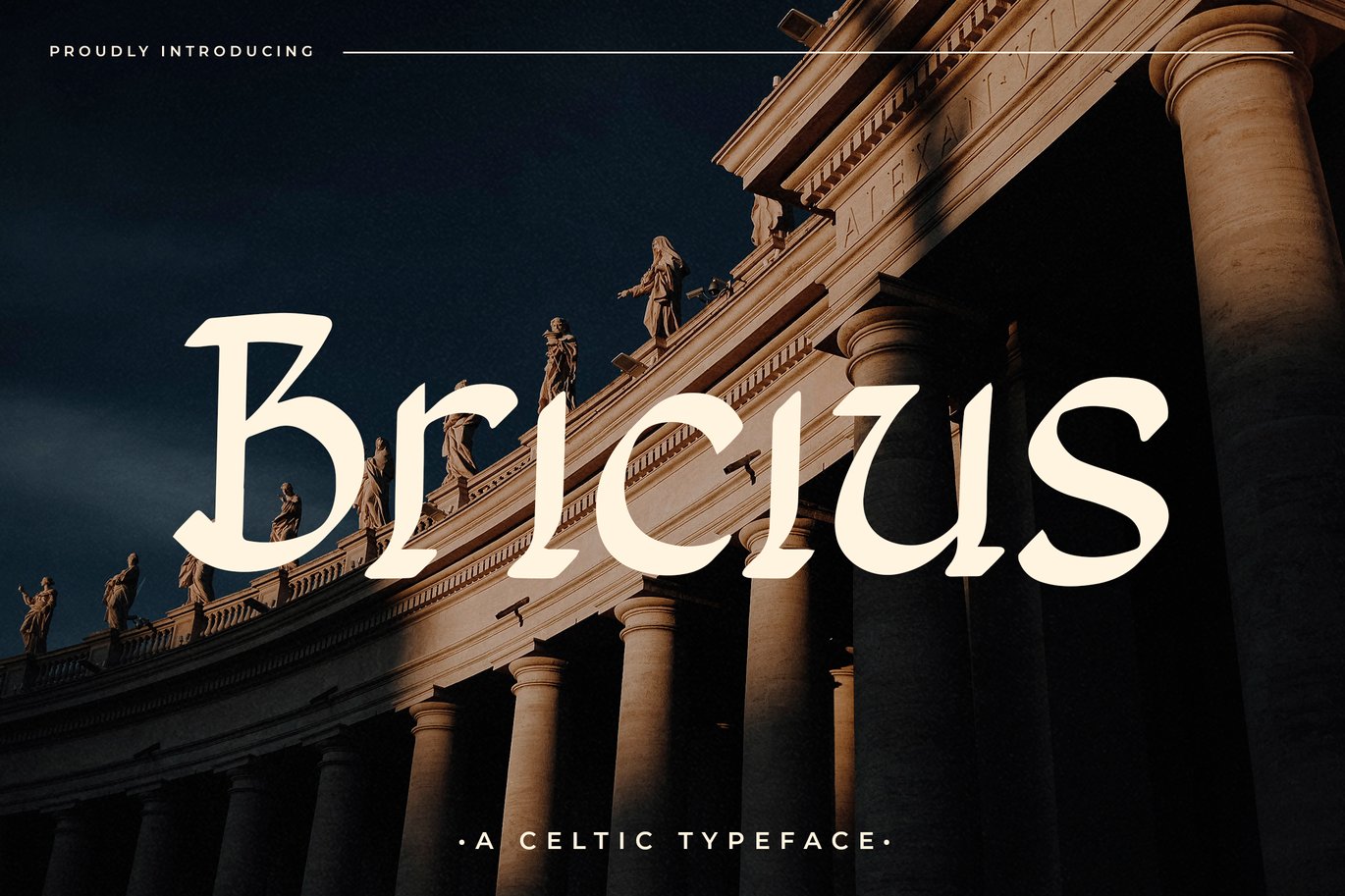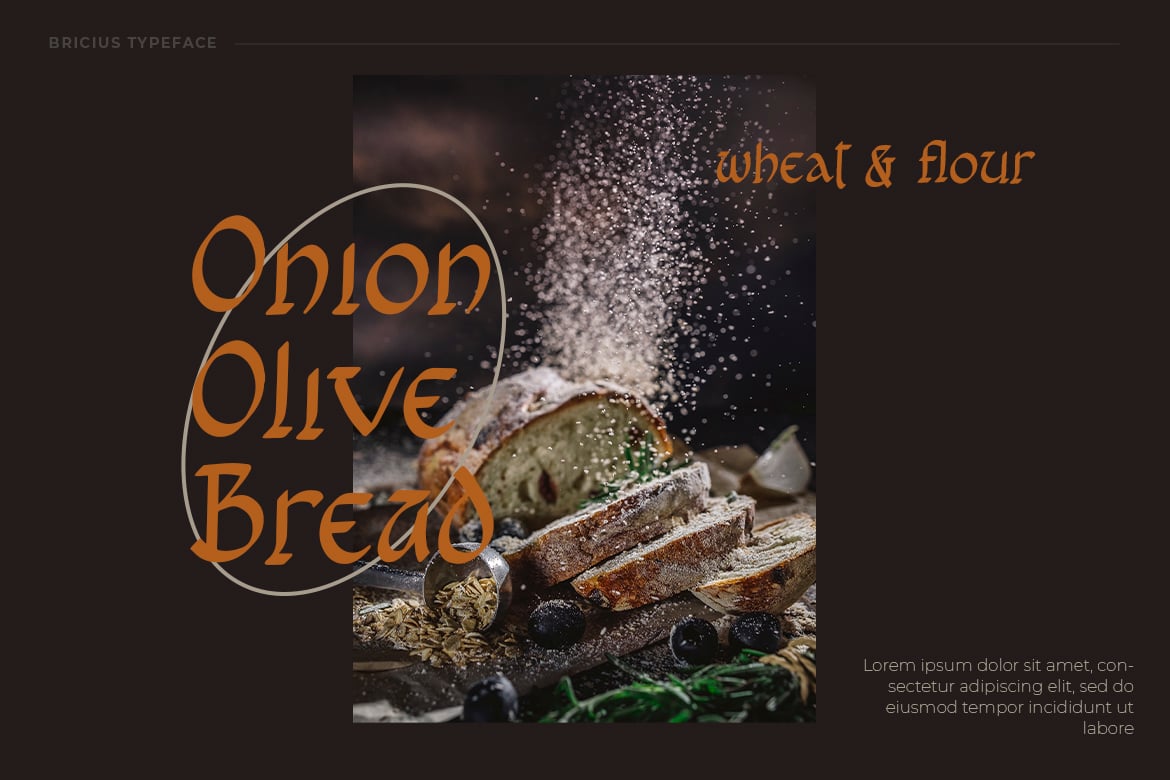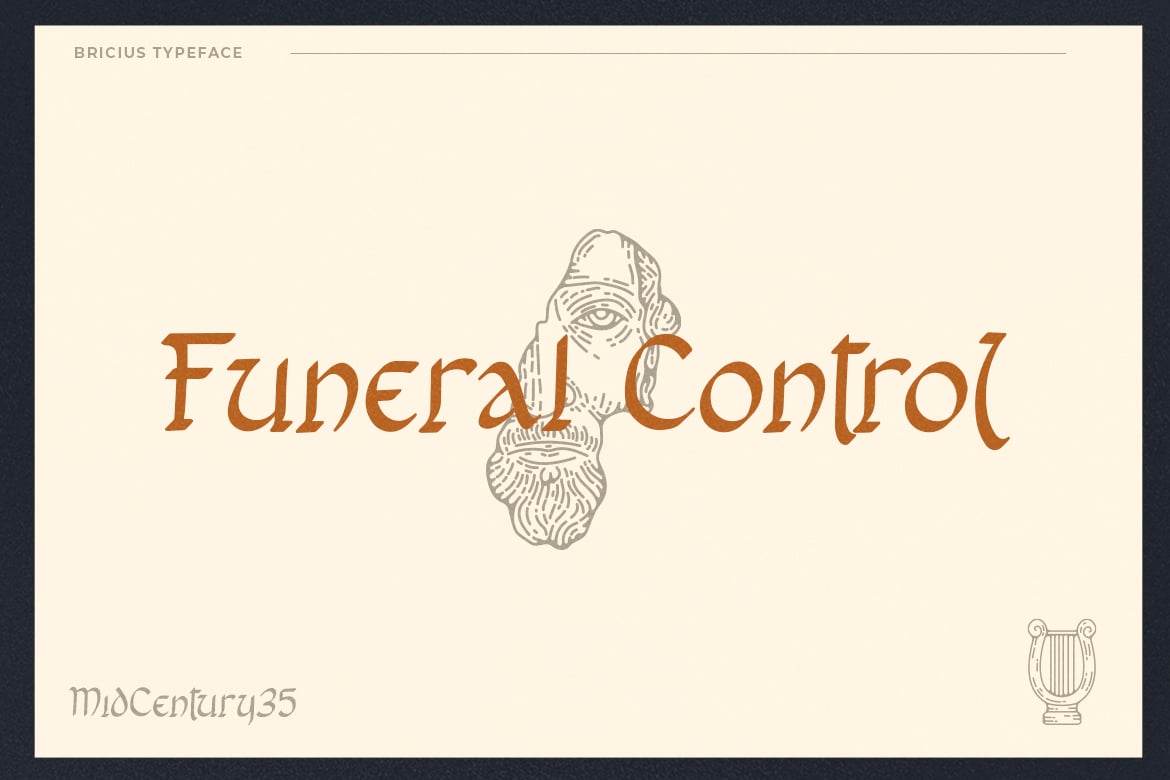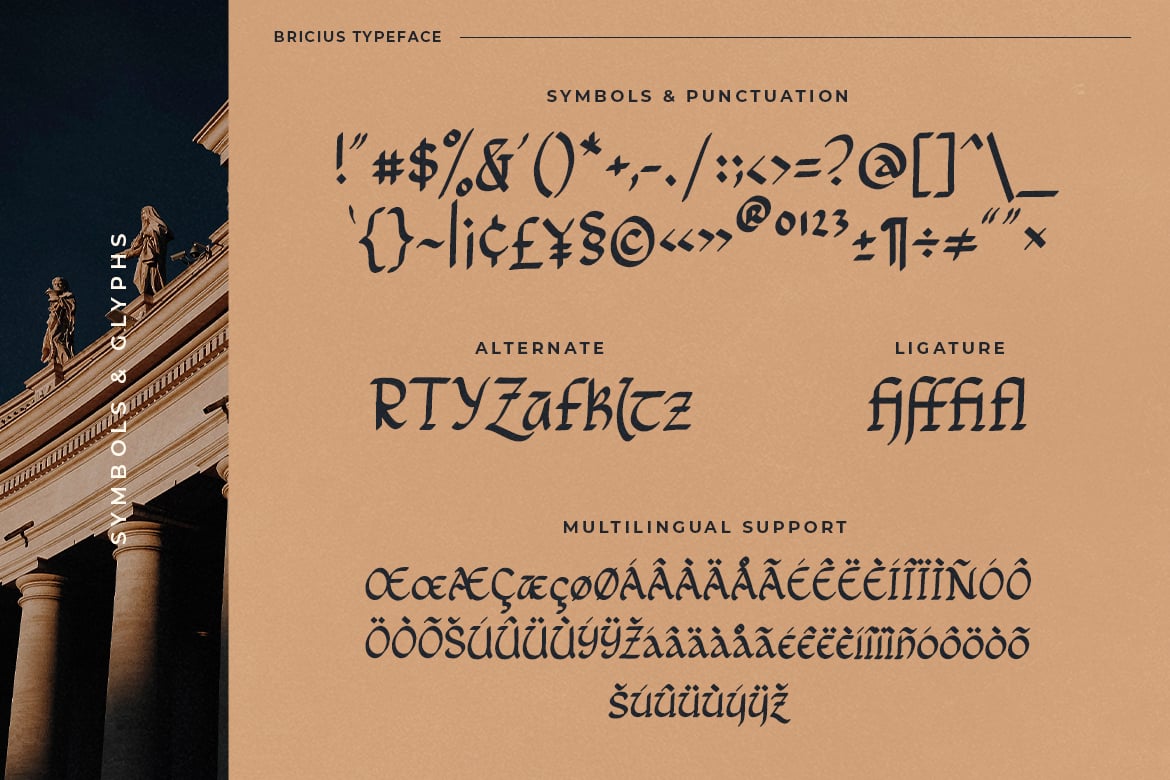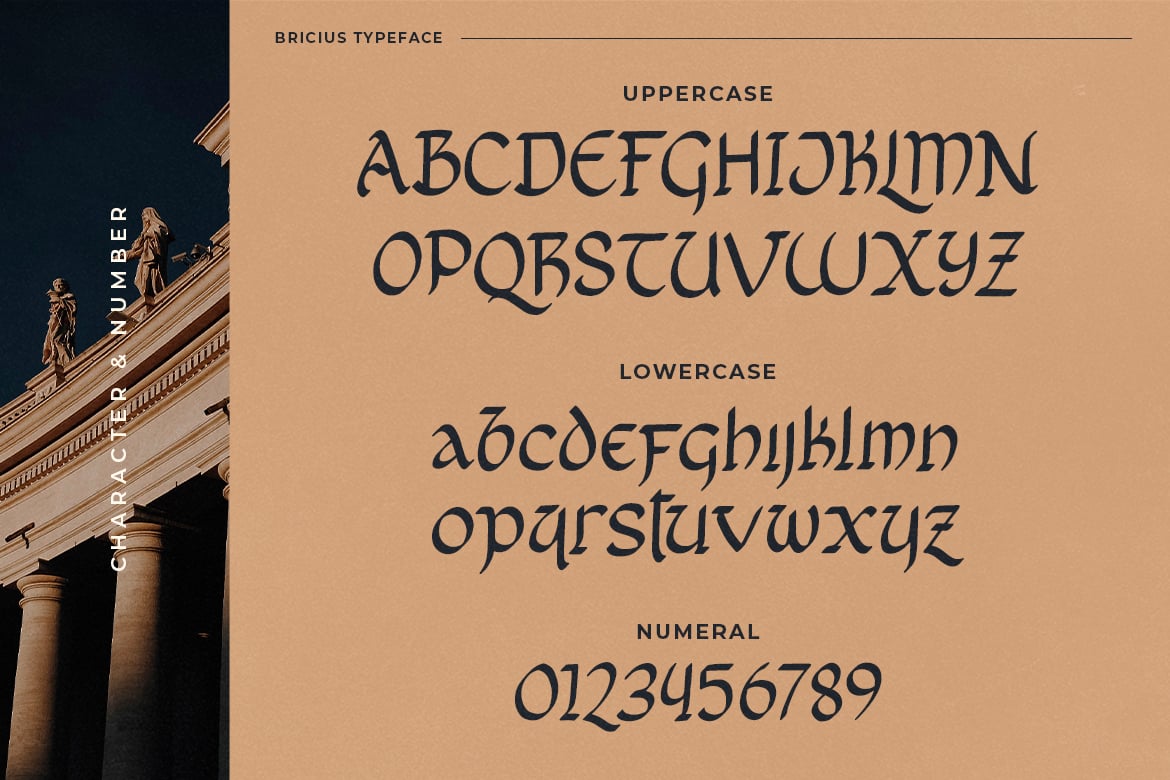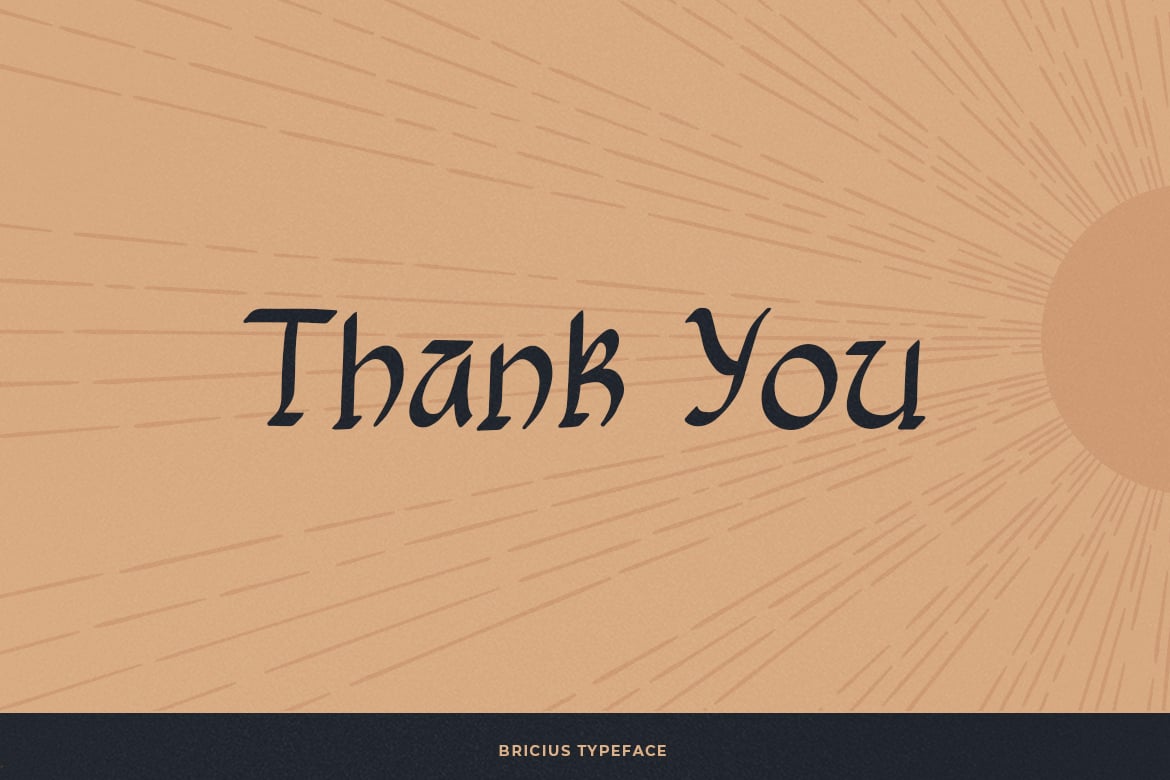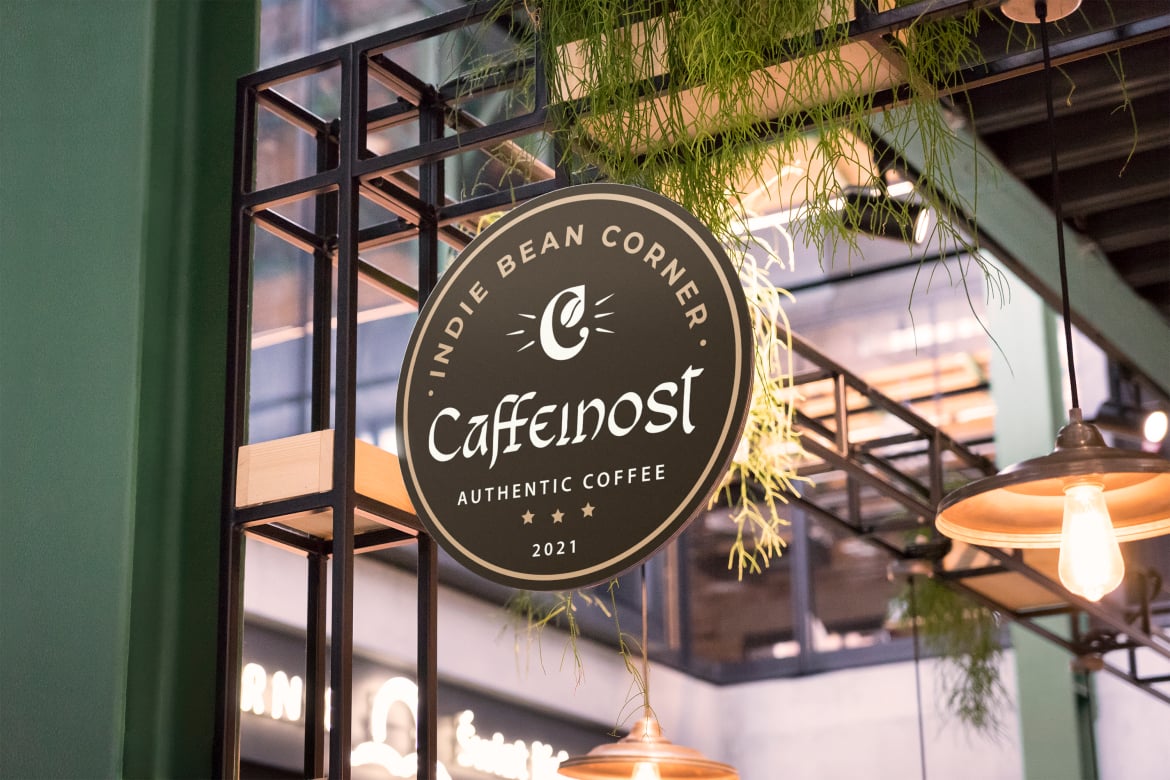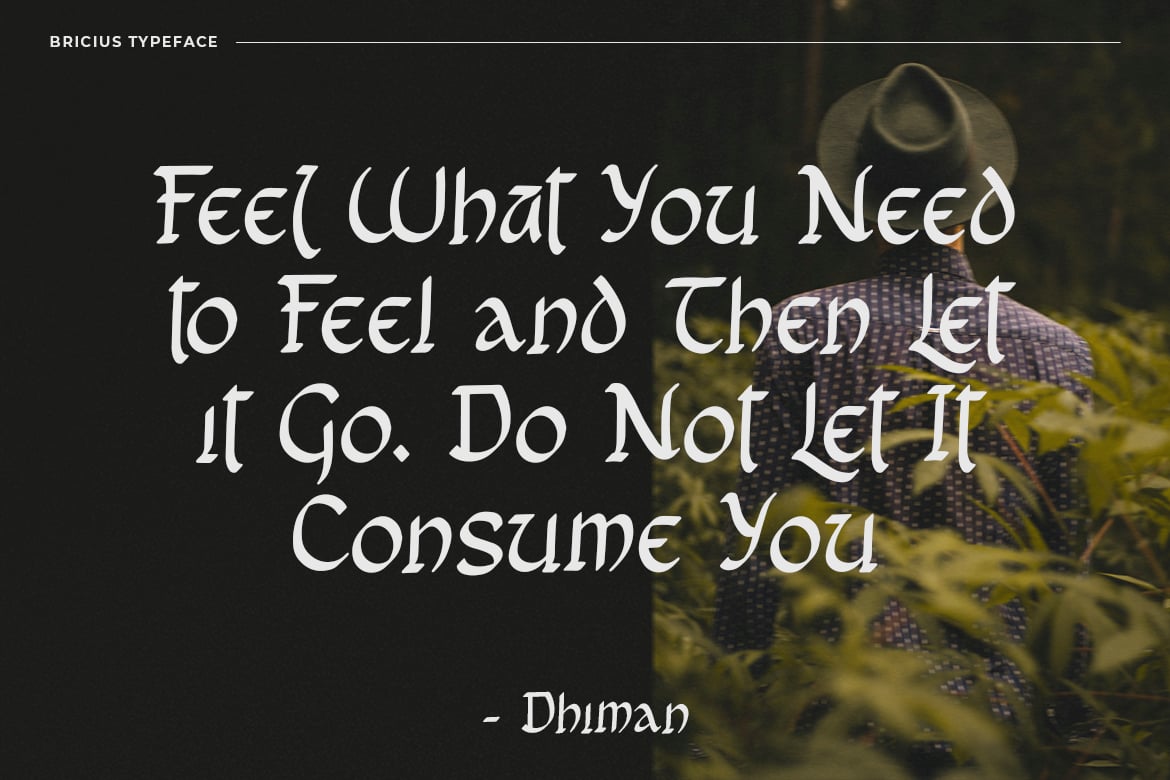
Bricius – Display Celtic Typeface
Bricius is a celtic style display font combined with a modern design, this font is modern, elegant and looks aesthetic.
This unique display typeface is inspired by celtic styles.
Use it for any design project that requires a personalized appearance!